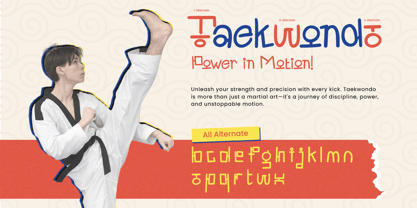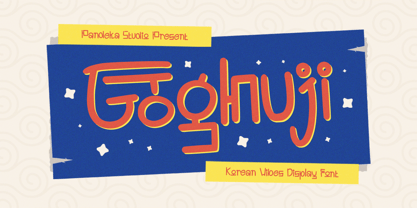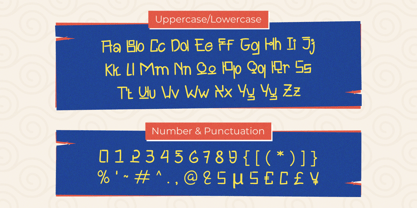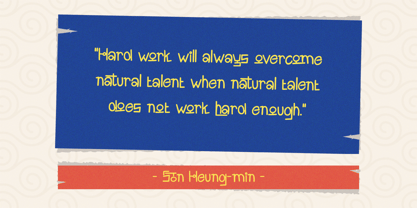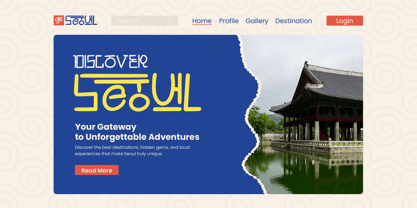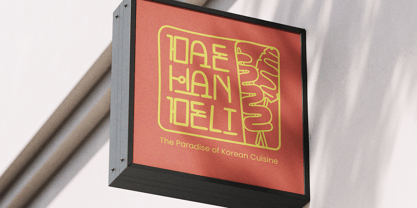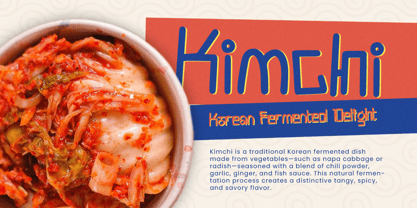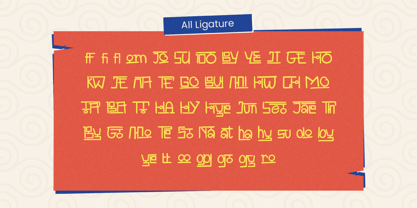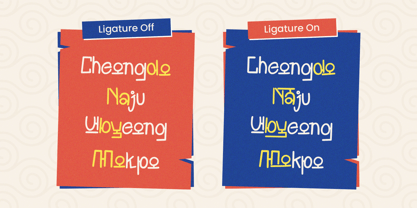
Goghuji
by Pandeka Studio
The Goghuji Font Family was designed by Sagara Nararya and published by Pandeka Studio. Goghuji contains 1 styles. More about this family
Goghuji – Korean Vibes Handwritten Typeface
Goghuji combines traditional Korean calligraphy with a modern aesthetic, creating a bold and stylish display font. Perfect for branding, posters, packaging, apparel, and cultural designs, this unique typeface brings an authentic and trendy touch to any project.
• 65+ Ligatures and alternates
Designers: Sagara Nararya
Foundry: Pandeka Studio